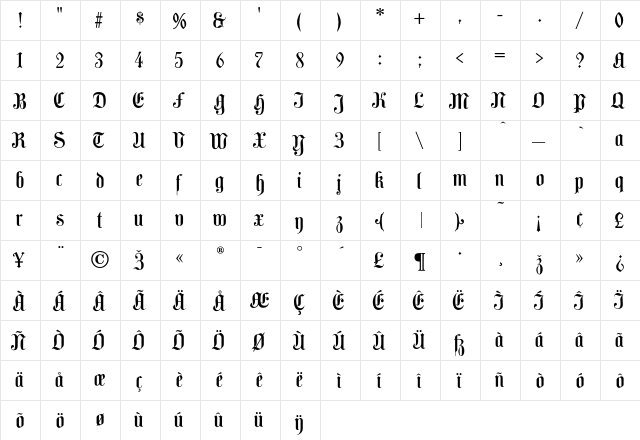
CamdenText Regular
Design Context for CamdenText Typeface
CamdenText takes a measured approach to typography — its balanced proportions and neutral character make it a reliable workhorse for both digital and print work.